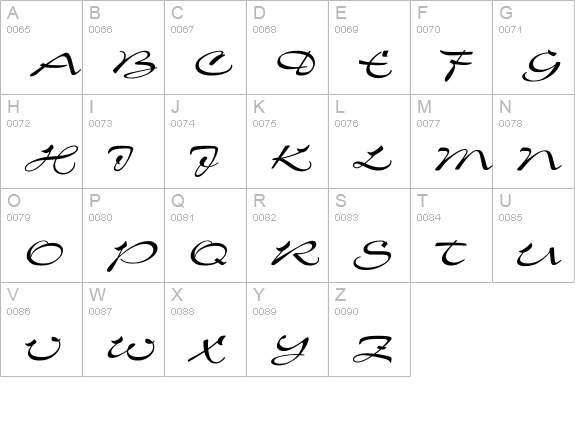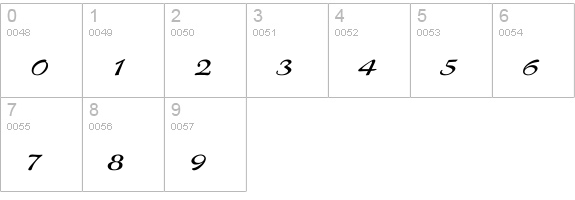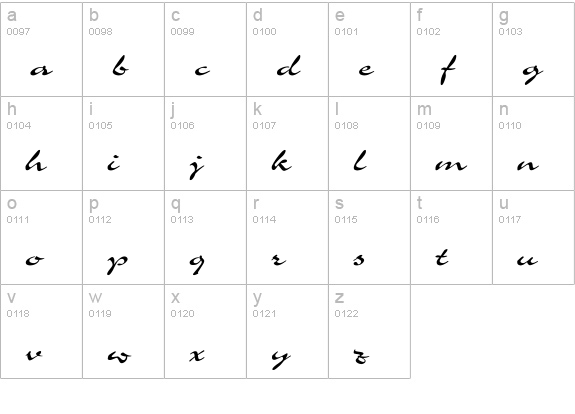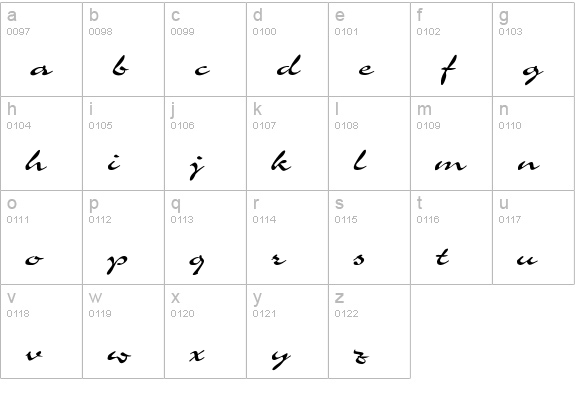
Charme Wd Font Details
Charme Wd font is a delightful and elegant typeface that exudes charm and sophistication. Its intricate details and graceful curves make it perfect for adding a touch of elegance to any design project. The flowing nature of this font gives it a unique and captivating appeal that is sure to catch the eye. What makes Charme Wd font even more appealing is that it is available for free download at FontsMarket.com. This means that you can easily access and use this beautiful font in your projects without any cost involved. Whether you are working on a personal project or a professional design, Charme Wd font is a versatile choice that will elevate your work to the next level. With its timeless style and effortless beauty, Charme Wd font is a must-have in any designer's toolkit. Download it for free today at FontsMarket.com and add a touch of charm to your designs!